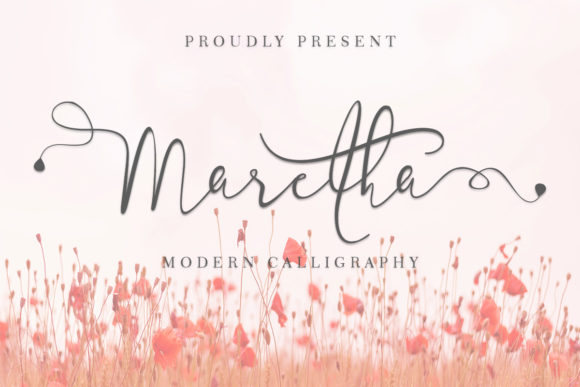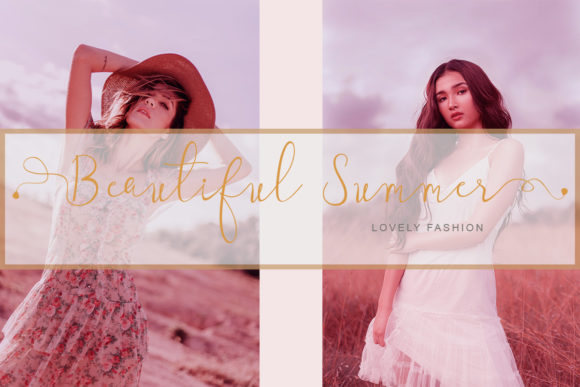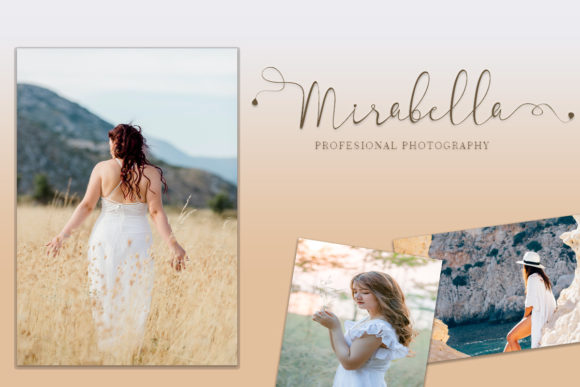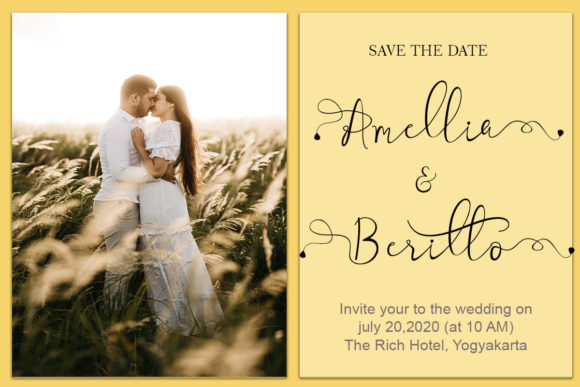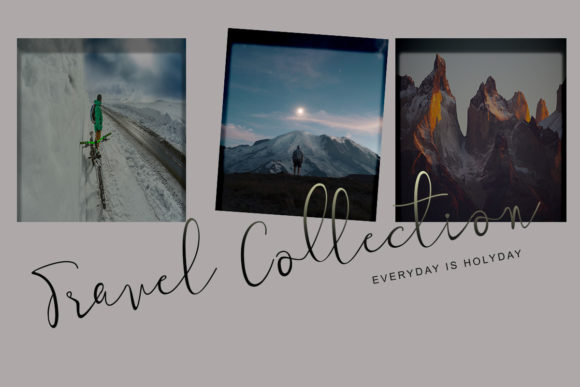
About Maretha Font
Maretha is a beautiful handwritten font. Fall in love with its authentic feel and use it to create gorgeous wedding invitations, beautiful stationary art, eye-catching social media posts, and cute greeting cards.